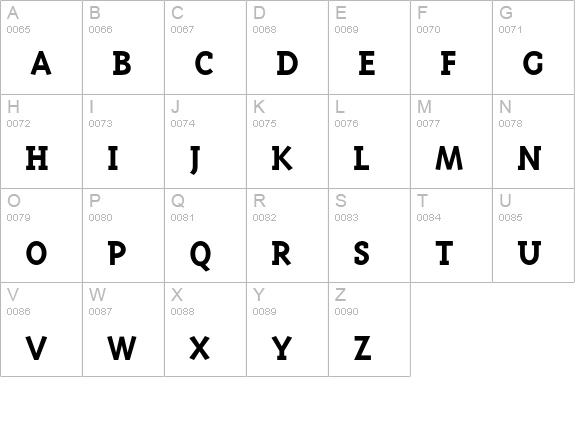
TriplexSerifBoldLining Font Details
TriplexSerifBoldLining is a striking and versatile typeface that combines the elegance of a serif font with the boldness of a lining font. Its strong and distinctive letterforms make it a perfect choice for headlines, titles, and logos that demand attention. This font features clean lines, sharp corners, and generous spacing, giving it a modern and refined look. The bold weight adds a touch of confidence and strength, making it suitable for a wide range of design projects. TriplexSerifBoldLining is designed with readability in mind, ensuring that your message will be conveyed clearly and effectively. Whether used in print or digital media, this font stands out and commands attention. One of the best features of TriplexSerifBoldLining is that it is free to download. You can easily find this font available for download at FontsMarket.com, a trusted website for high-quality fonts. By offering this font for free, it allows designers and creatives to access a professional and eye-catching typeface without any financial barriers. With its bold and striking appearance, TriplexSerifBoldLining can elevate your designs and make them truly memorable. Whether you are designing a logo, creating a headline, or working on a branding project, this font is a versatile and powerful tool that will help you make a lasting impression. Download TriplexSerifBoldLining for free at FontsMarket.com and unleash your creativity with this exceptional font that combines elegance and boldness in a seamless and captivating way.